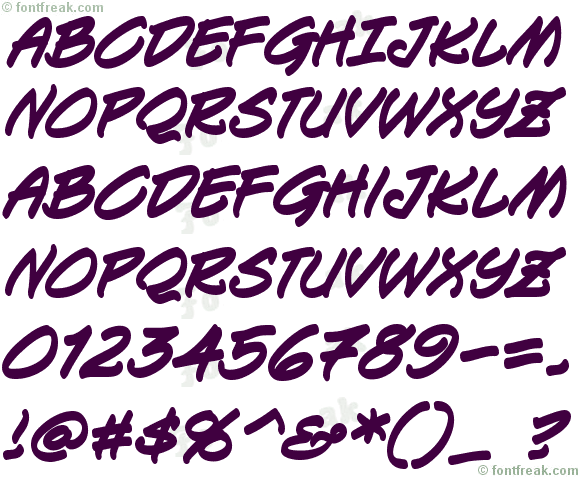
Keelhauled BB
Keelhauled BB Bold
About Keelhauled
Keelhauled is a distinctive display font designed by Nate Piekos for Blambot Fonts, released as freeware in 2005. This font is characterized by its bold, playful style that evokes a sense of adventure and whimsy. It features a unique blend of rounded and angular letterforms, giving it a dynamic visual appeal. The stroke weight is consistent, with moderate contrast that enhances readability while maintaining a fun, eye-catching presence. The spacing between characters is well-balanced, allowing for seamless integration into various design projects.
The Keelhauled font is particularly well-suited for use in creative and informal contexts. It excels in applications such as movie posters, where its boldness can capture attention and convey a sense of excitement. Additionally, it works beautifully in children's book covers, where its playful character can engage young readers. Restaurant menus can also benefit from the font's unique flair, adding a touch of personality to the dining experience. Furthermore, it is ideal for promotional materials, such as flyers or social media graphics, aimed at appealing to a youthful audience.
The target audience for the Keelhauled font includes graphic designers, small business owners, and content creators looking to infuse their projects with a sense of fun and creativity. This font stands out due to its unique style that balances boldness with approachability, making it versatile for a wide range of applications. The Keelhauled font free download offers designers an opportunity to enhance their work with a distinctive typeface that brings an element of playfulness and charm to any project. Whether you're designing for print or digital media, Keelhauled is sure to make a lasting impression.